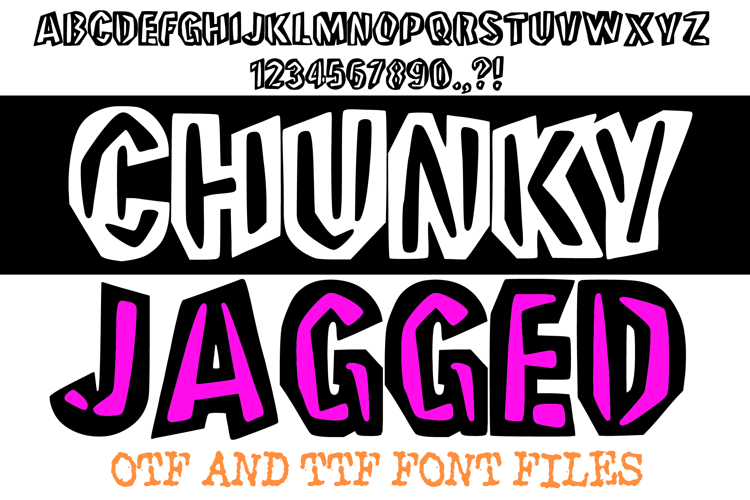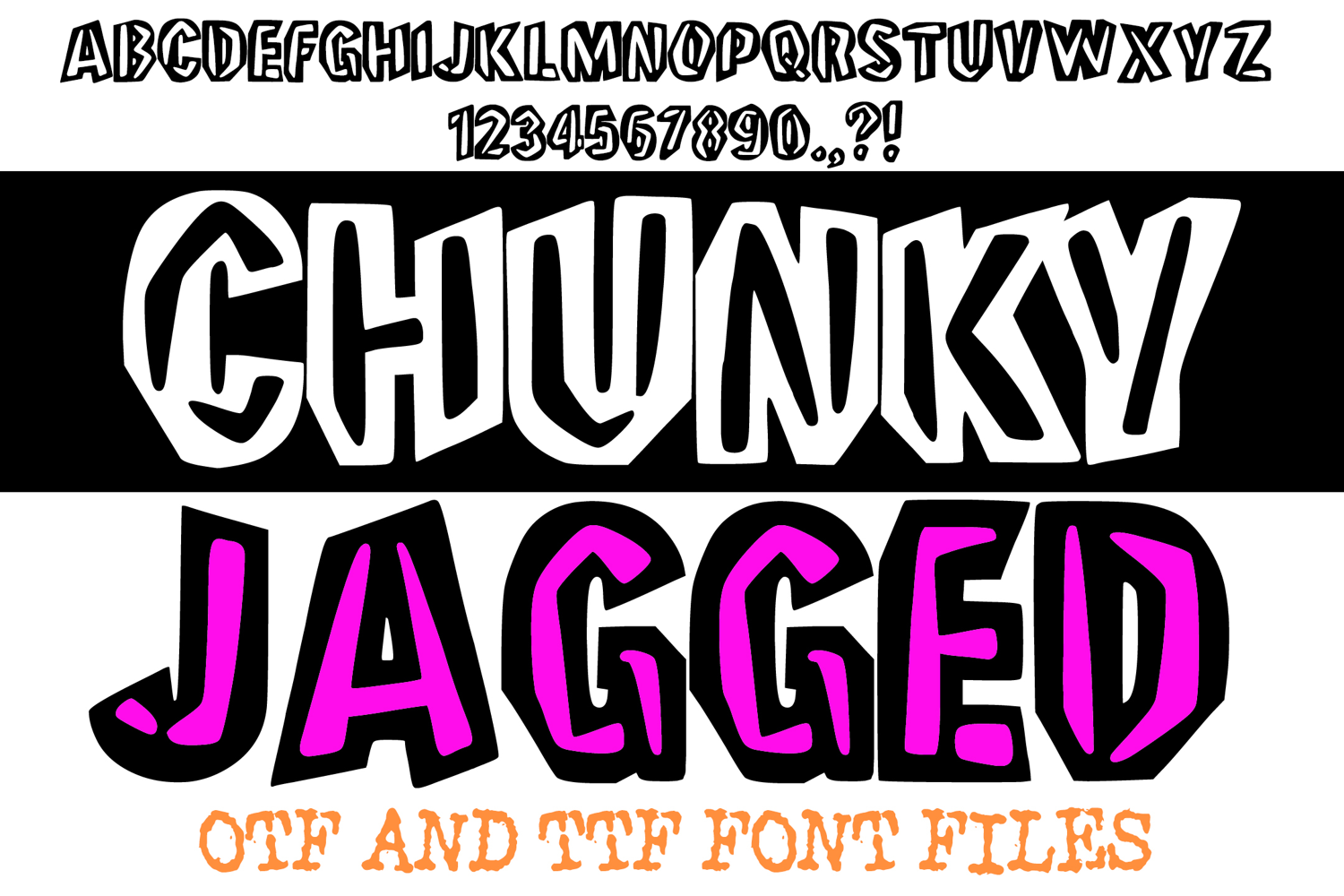
Chunky Jagged Lettering ABC Riot Punk Font Typeface Alphabet
Unleash a raw, unapologetic edge into your designs with Chunky Jagged Font! This powerfully expressive typeface commands attention, featuring thick, assertive letterforms with sharp, uneven, and deliberately irregular edges. It's more than just a font; it's a visual roar, designed to inject an immediate, impactful, and rebellious attitude into any creative project.
Each character in Chunky Jagged Font is crafted with a robust, block-like structure whose outlines are sharply fragmented and angular, creating a distinctive, gritty, and eye-catching appearance. Ideal for crafting impactful headlines, edgy logos, urban-themed posters, rock band merchandise, protest signage, or any project that needs to convey a sense of strength, defiance, or raw, unrefined energy.
Whether you're aiming for a punk aesthetic, an industrial vibe, a street art feel, or a distressed graphic look, this font delivers with uncompromising style. Its commanding presence, combined with its unique jagged edges, ensures readability while injecting an artistic chaos that stands out dramatically from conventional designs.
If you're looking to infuse your designs with a sense of bold aggression, unique texture, and undeniable urban credibility, Chunky Jagged Font is your ultimate tool. Sharpen your message and make your mark!